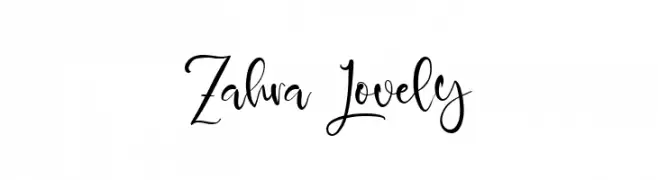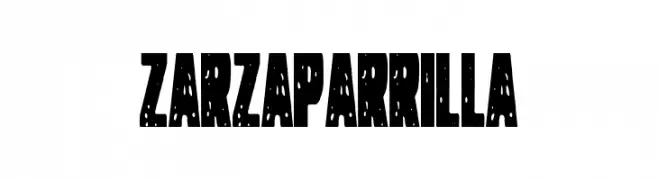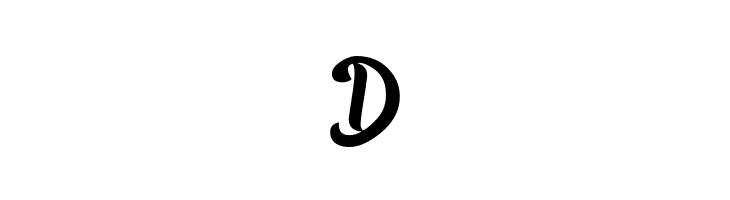
A bold, handwritten cursive font with a lively and expressive style.
A flowing, cursive font with elegant, sweeping lines and connected characters.
An elegant, flowing script font with ornate uppercase and smooth lowercase letters.
A bold, textured font with a crumpled paper effect, perfect for creative projects.
A playful, bold font with rounded characters, ideal for fun and energetic designs.
A bold, playful font with rounded characters, perfect for creative projects.
A bold, italic, and cursive font with dynamic strokes and artistic flair.
A bold, distressed decorative font with a vintage, rugged texture.